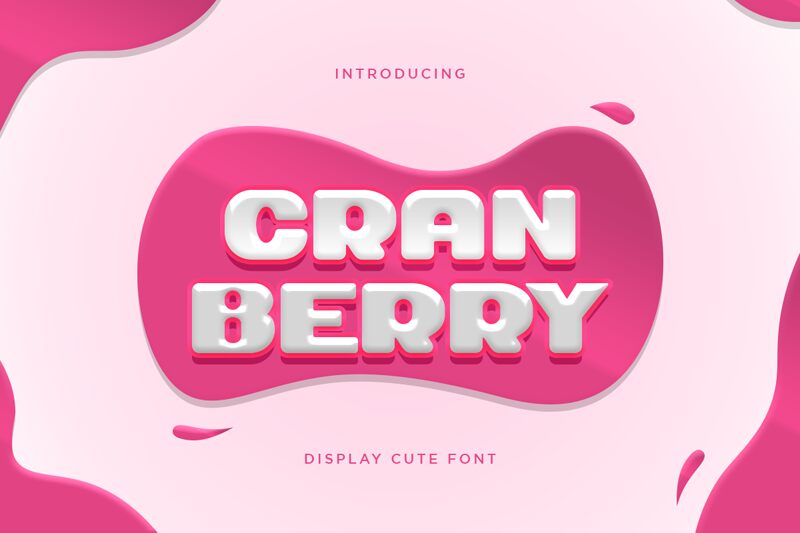
Cranberry
Cranberry, a display font crafted by Kong Font, commands attention with its extra-bold weight and expanded width. This typeface's broad strokes and substantial presence offer a modern and assertive aesthetic that is both striking and readable. The generous spacing within each character of Cranberry allows for high-impact headlines and an authoritative voice in branding, advertising, and poster design. Its distinctive style makes it particularly suitable for projects requiring a touch of boldness without compromising on clarity.
With Cranberry, designers can infuse their work with a robust typographic statement that stands out in both print and digital mediums.